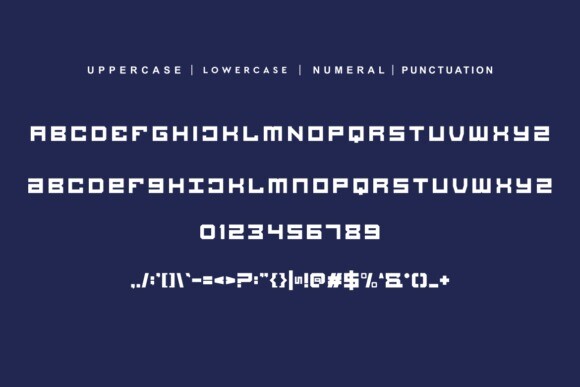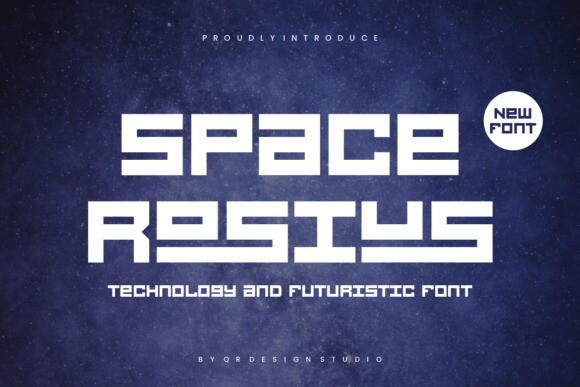
Space Rosius Font
Space Rosius Font is a sleek and futuristic display typeface that transports designs into the cosmos. Its geometric shapes and sci-fi-inspired letterforms evoke a sense of space exploration and technological advancement. Perfect for futuristic designs, logos, and posters, this font brings a modern and innovative touch to any project.